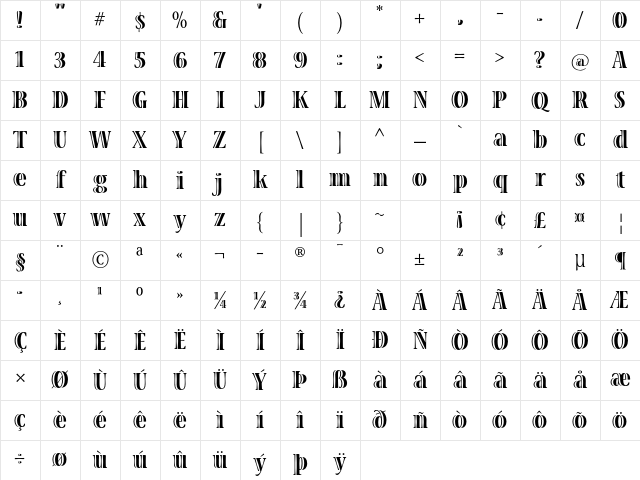
Viva Std Bold Condensed
Style: Bold Condensed
Designer: Carol Twombly
Design Context for Viva Std
Viva Std is a composed and adaptable typeface that performs quietly and consistently across a wide range of design contexts. Its bold stroke weight gives it real presence on the page. Its narrow stance lets it pack a punch even in space-constrained designs.